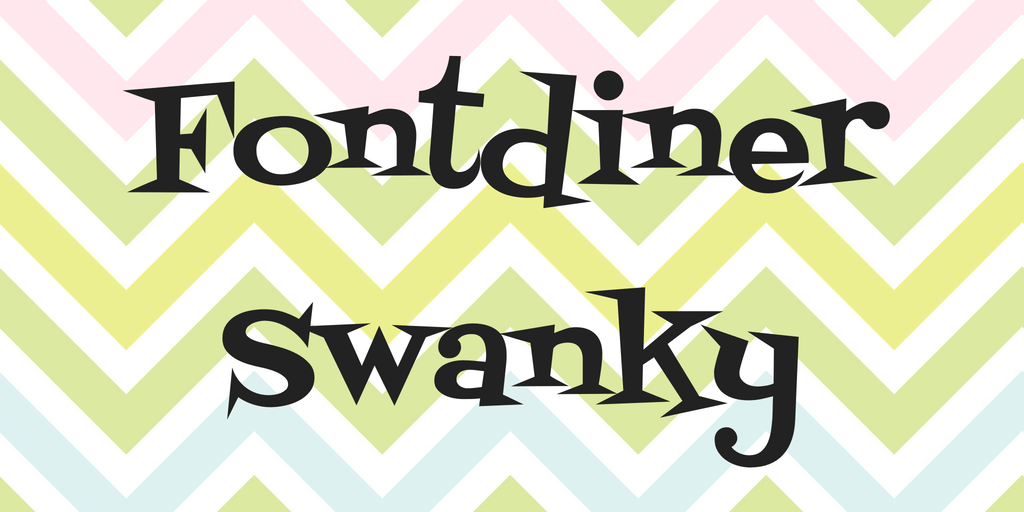
Fontdiner Swanky Font
Fontdiner Swanky Font is a standout font that is commonly seen on a television sitcom. It is one of the best fonts out there, offering a total of 8 font families with 192 different styles.
For the number one time, it has become launched fine in the much like bungee font family.